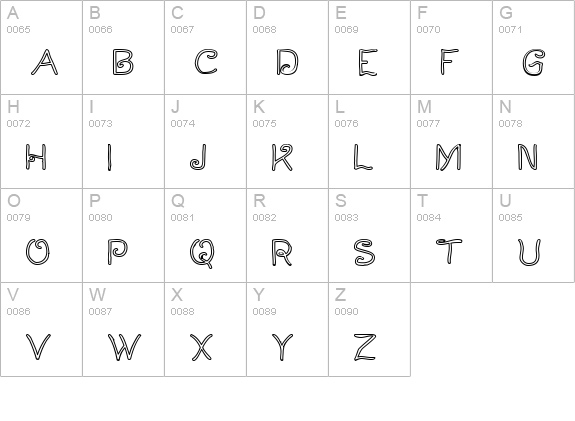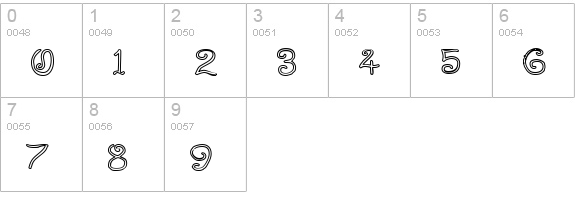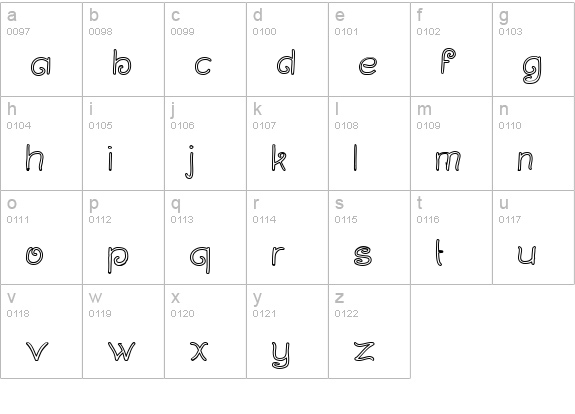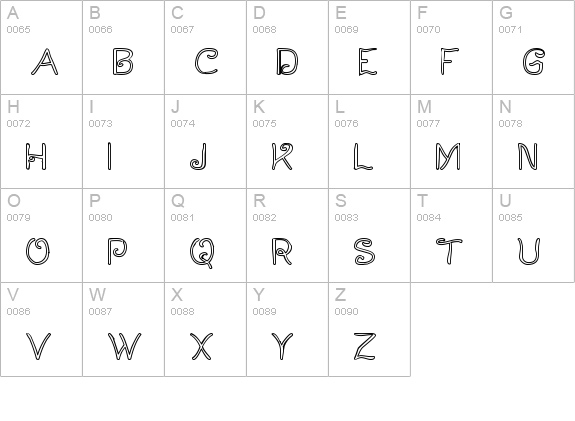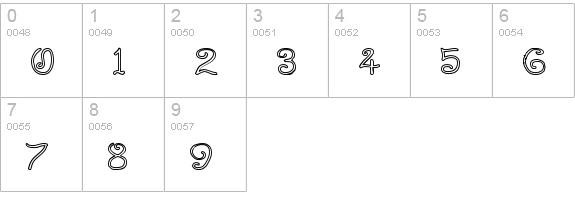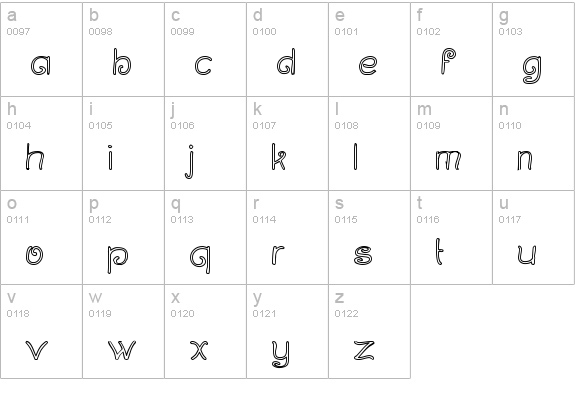
Curlmudgeon Hollow Font Details
Curlmudgeon Hollow font is a whimsical and charming typeface that exudes a sense of playfulness and creativity. With its intricate curls and swirls, this font is perfect for adding a touch of elegance to your designs. Whether you're working on invitations, posters, or branding materials, Curlmudgeon Hollow font will surely stand out and make a statement. The best part is that Curlmudgeon Hollow font is completely free to download at FontsMarket.com. You can easily access this beautiful font and use it in your projects without any cost. So why wait? Add a touch of whimsy to your designs with Curlmudgeon Hollow font today!